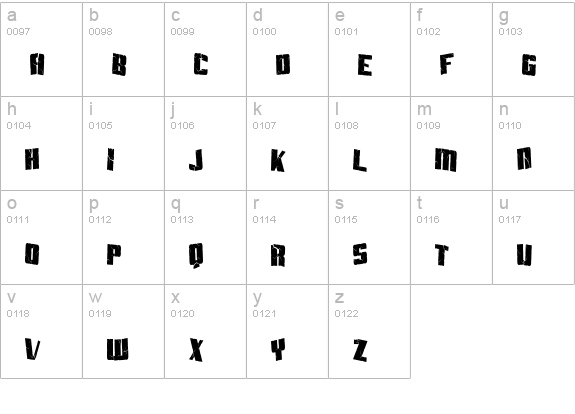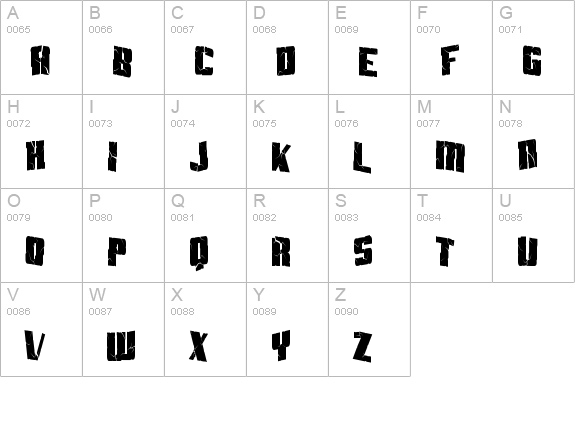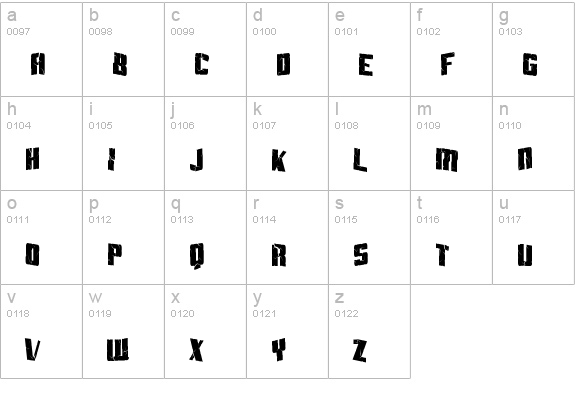
SF Aftershock Debris Condensed Font Details
SF Aftershock Debris Condensed is a distinctive, condensed-width variant in the SF typeface family \xE2\x80\x94 well suited to design and typography projects.
SF Aftershock Debris Condensed is a unique and captivating font that effortlessly combines modernity with a touch of edginess. Its condensed design showcases a sense of efficiency and sleekness, making it perfect for various creative projects such as logos, posters, headlines, and more. This font is inspired by the aftermath of a powerful earthquake, capturing the chaotic yet intriguing beauty of debris scattered across a landscape. Each character is meticulously crafted to evoke a sense of destruction and resilience, resulting in a visually striking typeface that demands attention. SF Aftershock Debris Condensed is not only visually appealing, but it also offers practicality and versatility. Its condensed form allows you to fit more text in a limited space without compromising legibility. Whether you're designing a magazine spread or a website layout, this font will help you make the most out of your available space. The best part? SF Aftershock Debris Condensed is available for free! You can easily download it at FontsMarket.com, a trusted source for high-quality fonts. Don't miss out on the opportunity to add this exceptional typeface to your font collection without spending a dime. In conclusion, SF Aftershock Debris Condensed is a visually captivating and versatile font that effortlessly combines modernity with a touch of chaos. Its condensed design and freely available download make it a must-have for any designer or creative individual looking to make a bold statement. So why wait? Head over to FontsMarket.com and unleash your creativity with SF Aftershock Debris Condensed today!